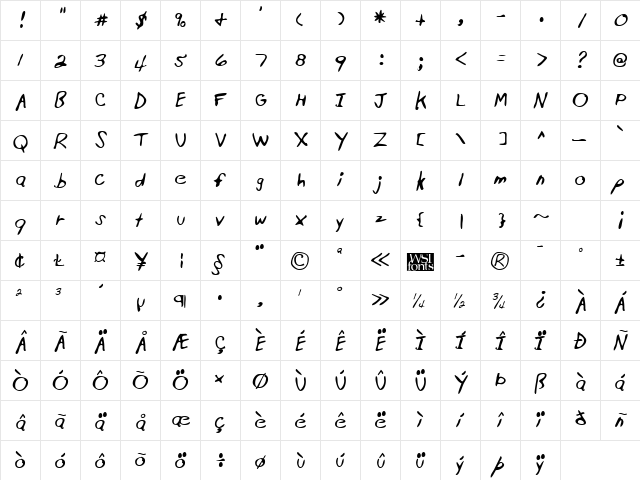
MontysHand Regular
Design Context for MontysHand Typeface
MontysHand flows with the natural rhythm of handwritten lettering, making it ideal for designs that call for warmth and personal expression.
Font Pairing: Combine MontysHand with a simple geometric sans for maximum contrast — the tension between flowing curves and clean structure is a classic typographic pairing.
Pro Tip: Use MontysHand for short runs of text — names, titles, or taglines. Extended body copy in script faces tires the eye quickly.